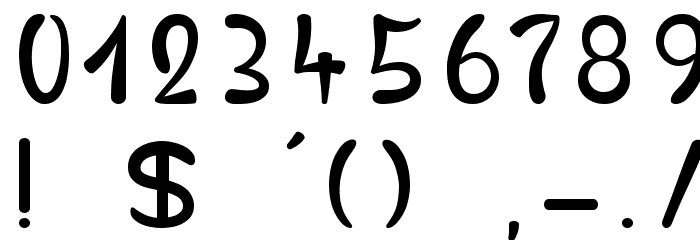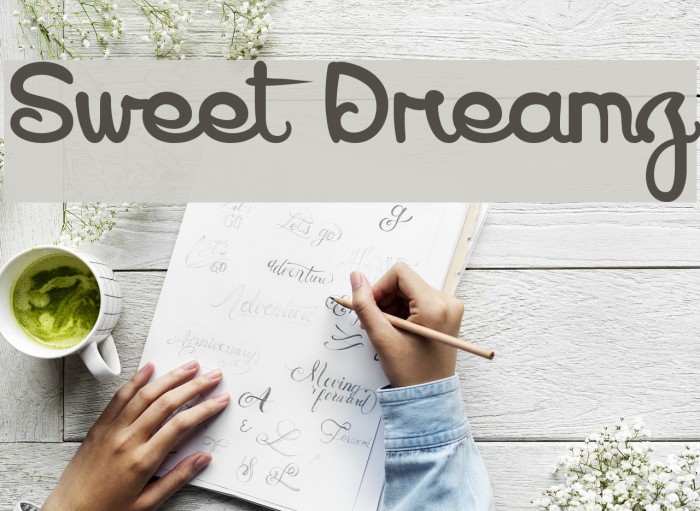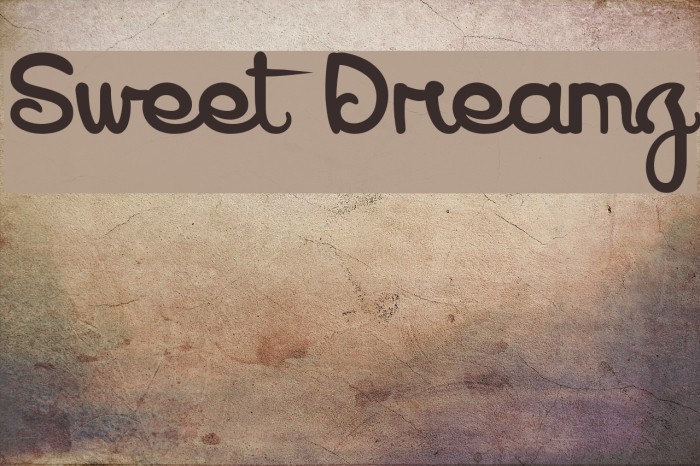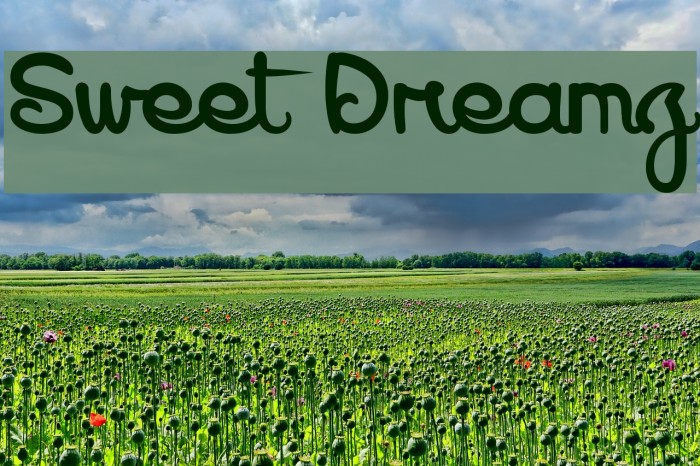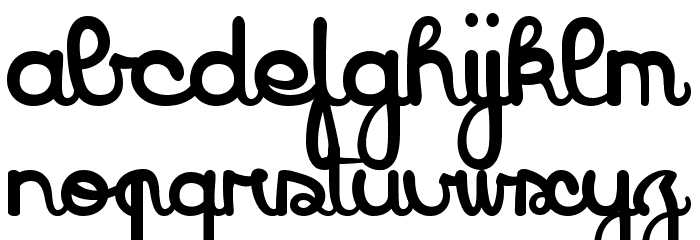
Sweet Dreamz Font
This playful and whimsical font features a handwritten style with a casual and friendly appearance. The letters are rounded and slightly irregular, giving it a charming and approachable feel. The uppercase letters maintain a consistent height, while the lowercase letters have a playful bounce, adding to the font's lively character. The numerals and special characters are designed to match the overall style, ensuring a cohesive look. This font is ideal for projects that require a touch of fun and creativity, such as children's books, greeting cards, or playful branding.
A playful, handwritten font with a whimsical and friendly style.
• Proposed Projects: Ideal for children's books, greeting cards, playful branding, and creative projects.
• Category: Handwritten
• Overall Style: Playful
• Use Case: Headlines, Logos, Creative projects